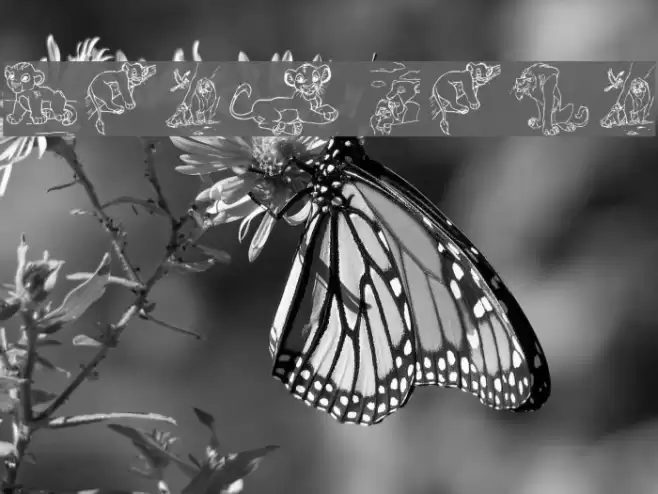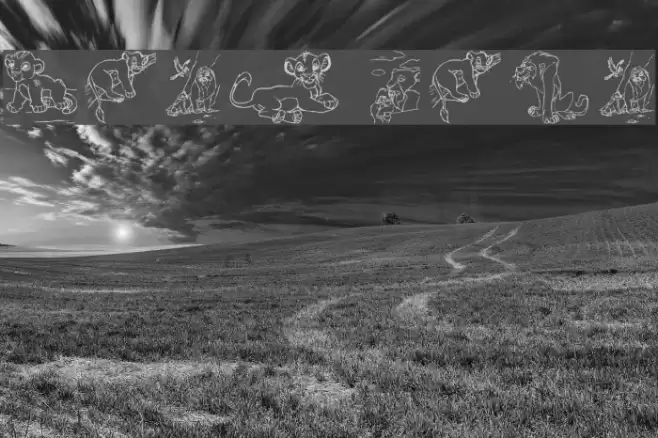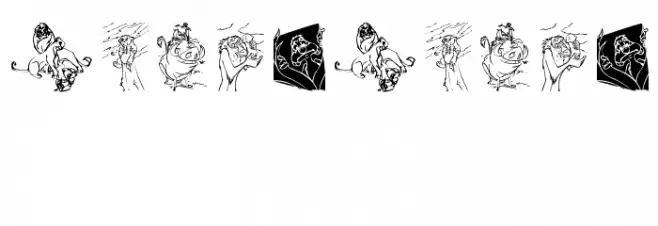
King Lion Font
King Lion Description
A decorative display font featuring detailed line art illustrations of lions and other characters in various poses and scenes, reminiscent of hand-drawn animation sketches. Each glyph is a unique illustration rather than a traditional letterform, making it highly stylized and thematic.
Illustrative, character-based decorative font with lion-themed sketches from Movie fonts.
- Proposed Projects: Children’s books, themed party invitations, posters, fan art, merchandise, and creative projects requiring animal or animated motifs.
- Overall Style: Decorative, Playful, Thematic
- Use Case: Logos, Posters, Invitations, Themed Graphics